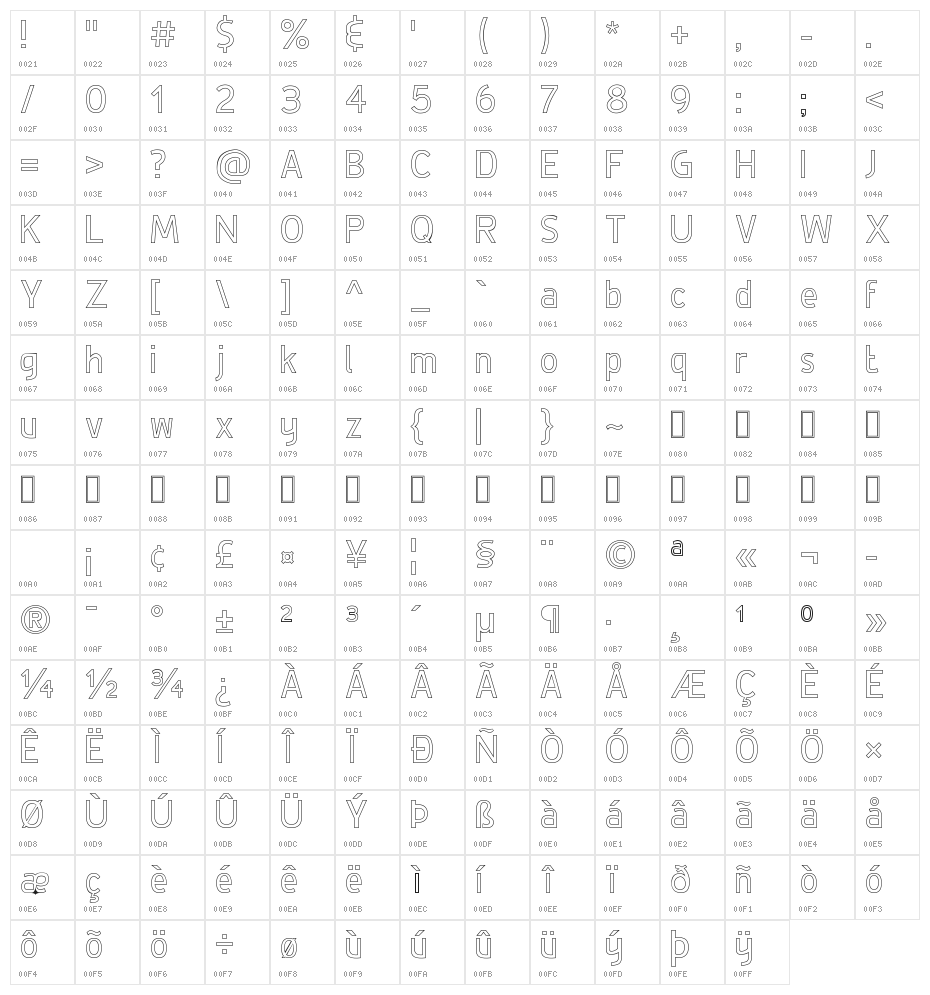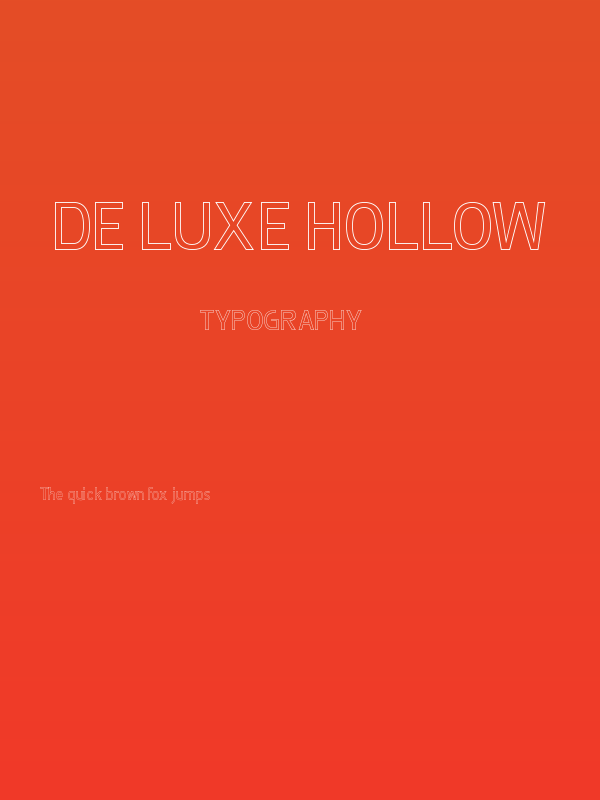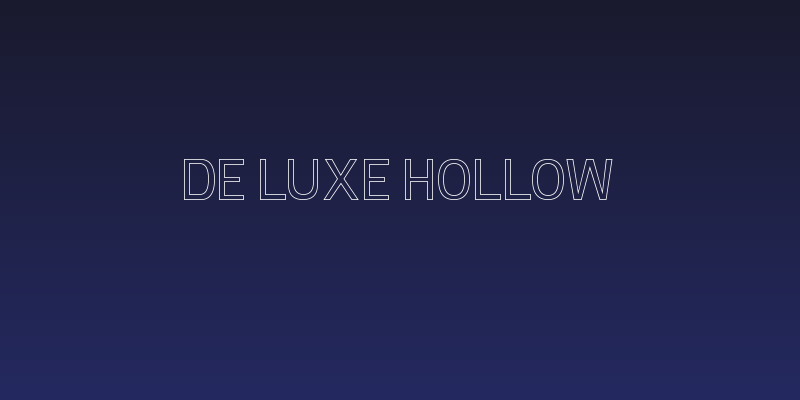
De Luxe Hollow Font
De Luxe Hollow Description
This font features a clean, geometric design with hollow characters that create a modern and open appearance. The uppercase and lowercase letters maintain consistent proportions, providing a balanced and harmonious look. The numerals and special characters follow the same hollow style, ensuring uniformity across all glyphs. The lines are precise and evenly spaced, contributing to a sleek and contemporary aesthetic. This font is ideal for projects that require a minimalist and airy feel, offering a unique twist on traditional sans-serif styles.
| Proposed Projects | Ideal for branding, posters, signage, and digital media where a modern and open look is desired. |